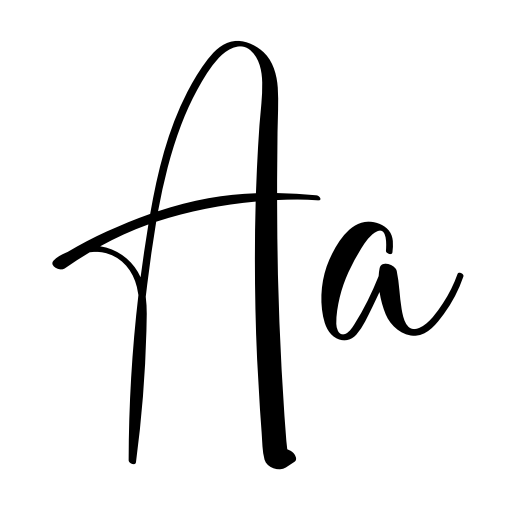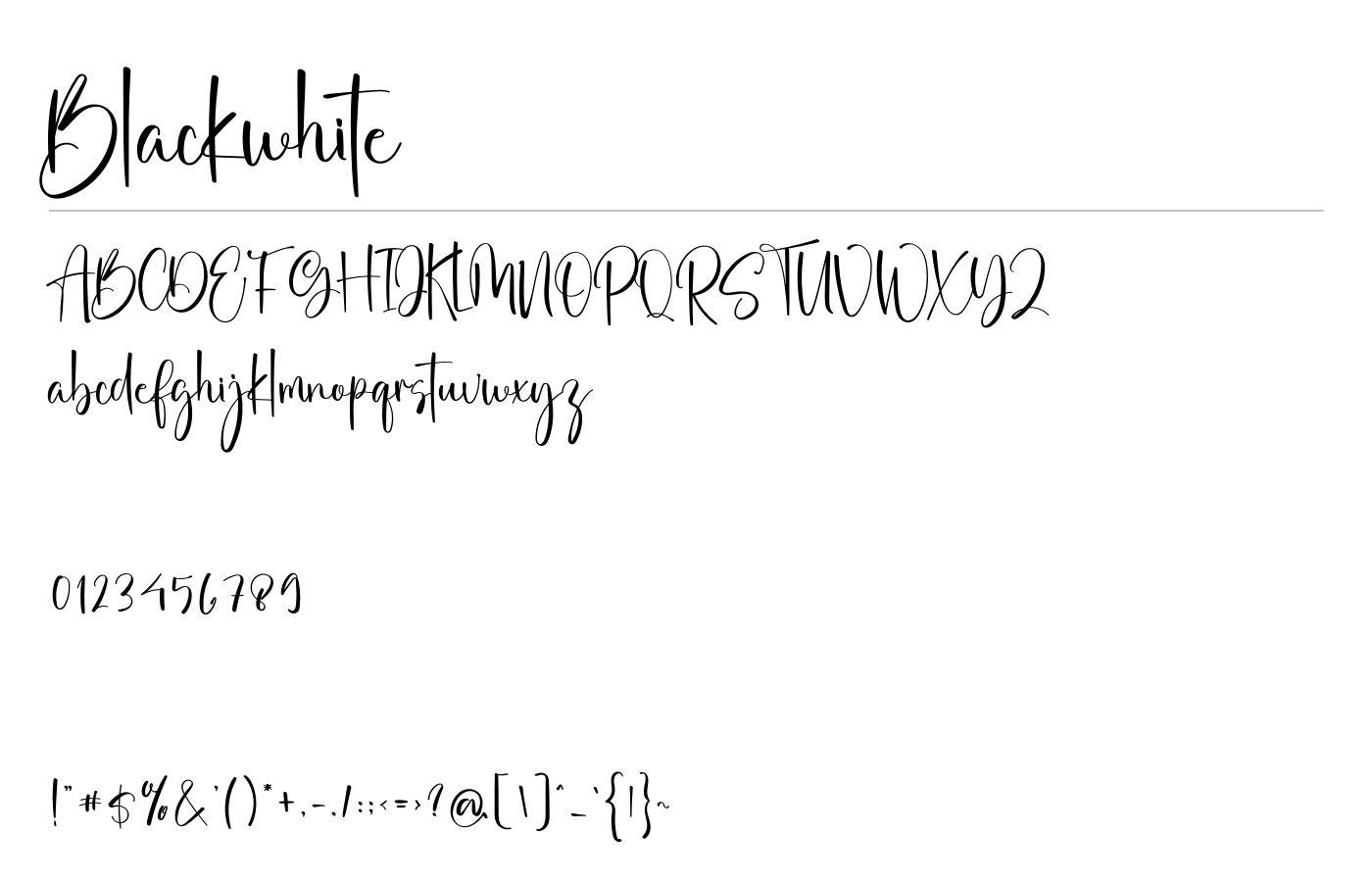
Blackwhite is a slender, playful script font characterized by its tall, narrow letterforms and whimsical strokes that resemble casual handwriting. Its elegant yet informal style makes it ideal for creative projects such as invitations, branding, and social media graphics where a personal, artistic touch is desired. This font’s light weight and airy feel work best in display uses, adding charm and personality without overwhelming the design.
Blackwhite Font